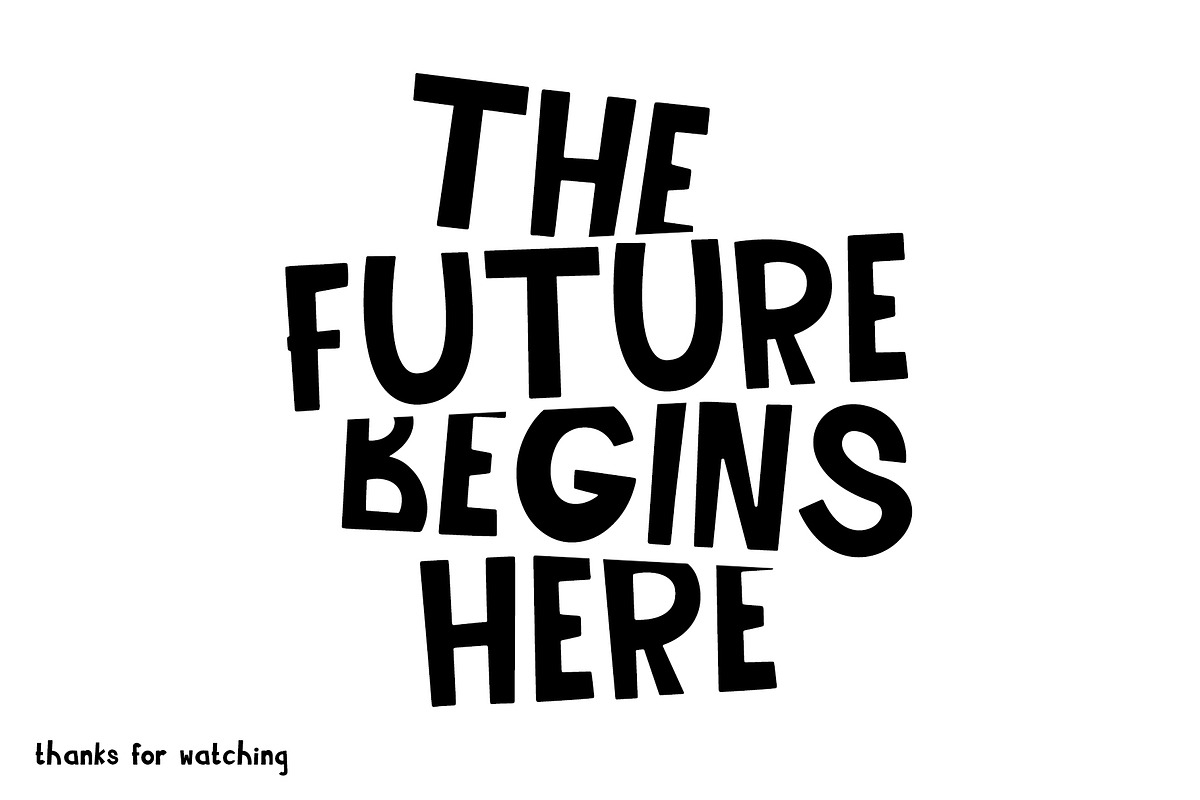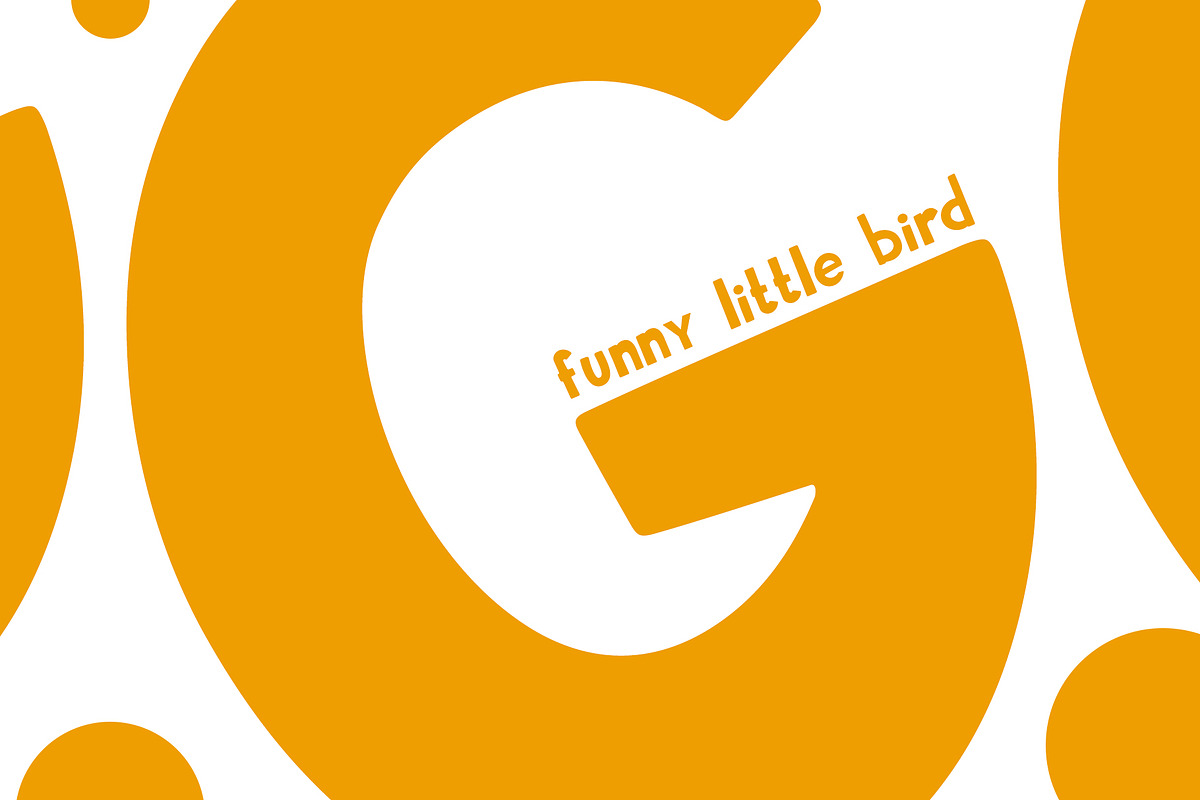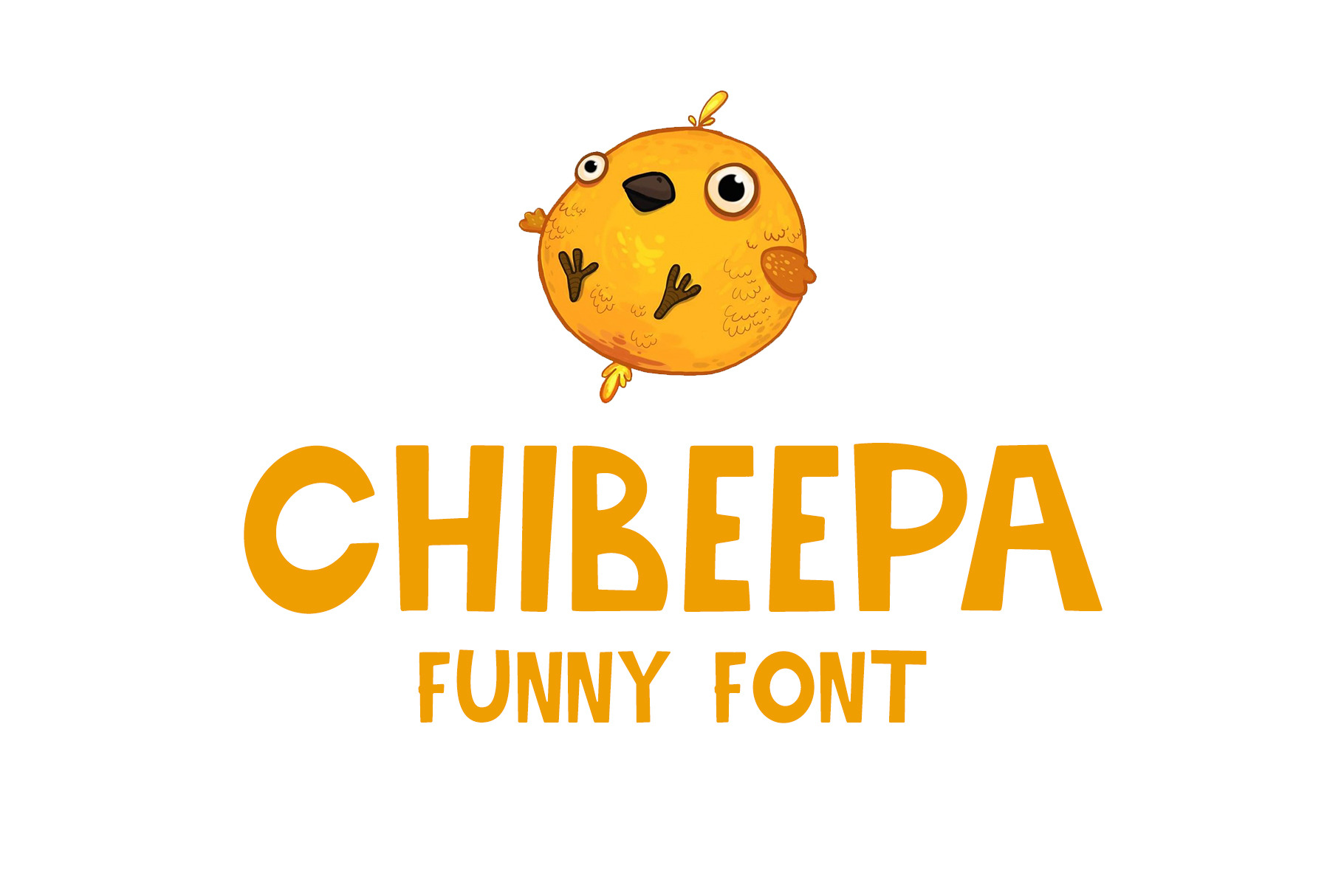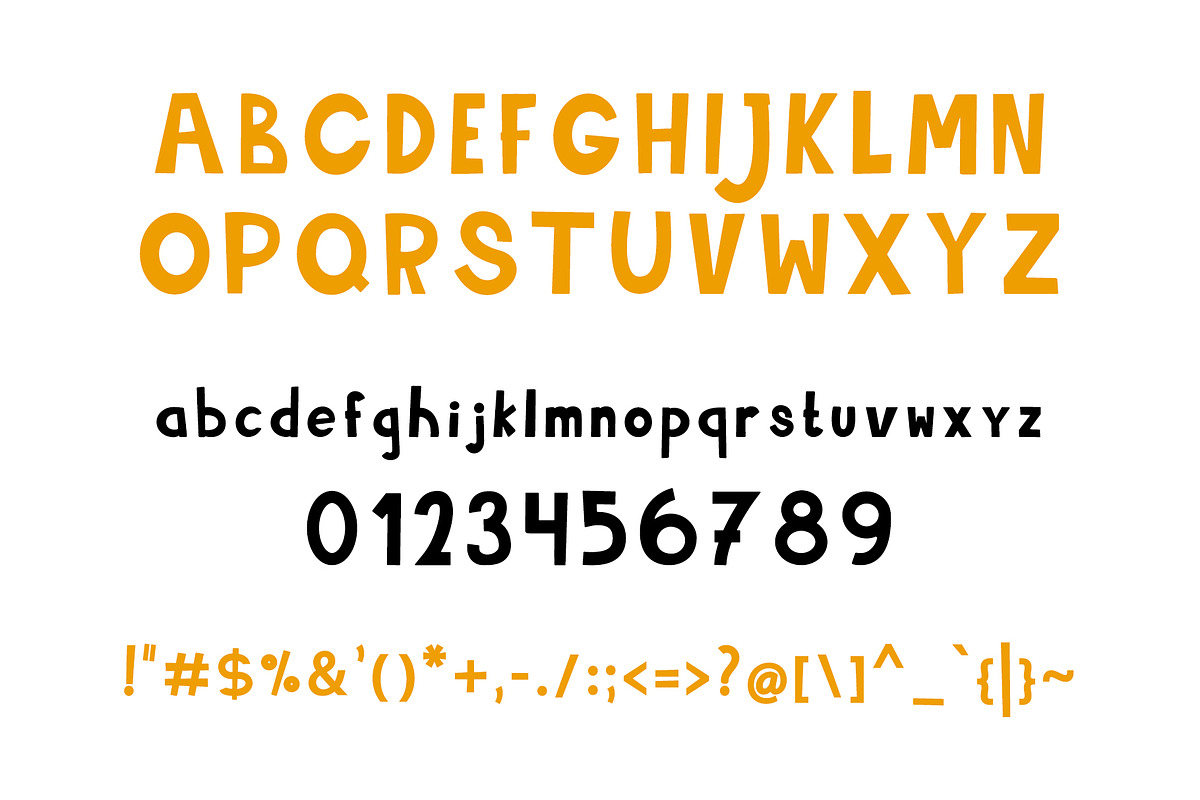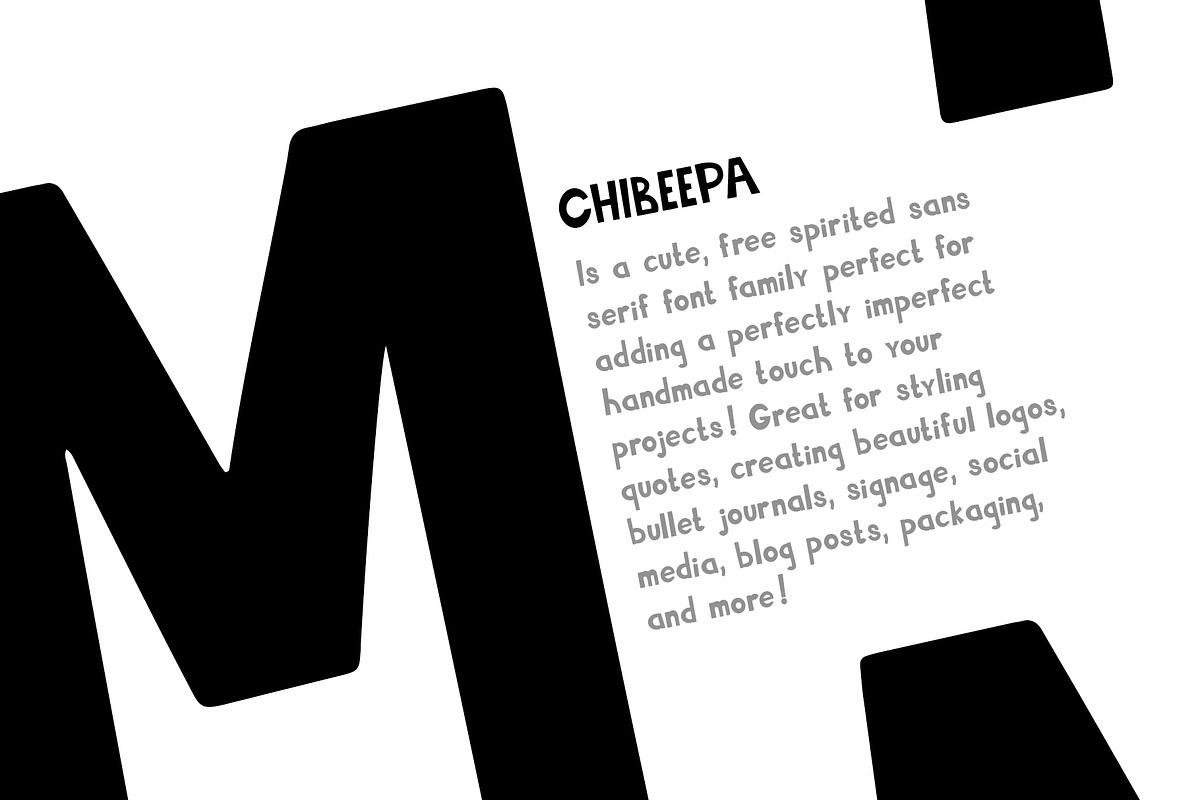
CHIBEEPA funny font
Is a cute, free spirited sans serif font family perfect for adding a perfectly imperfect handmade touch to your projects! Great for styling quotes, creating beautiful logos, bullet journals, signage, social media, blog posts, packaging, and more!